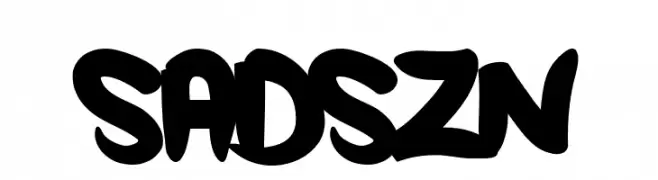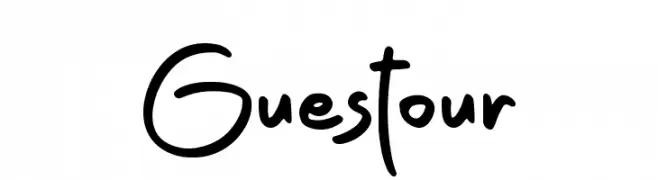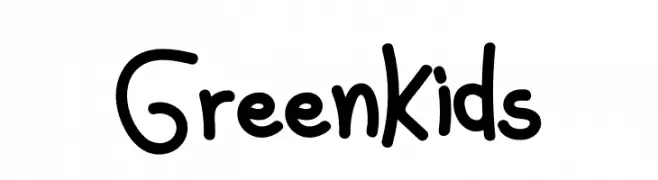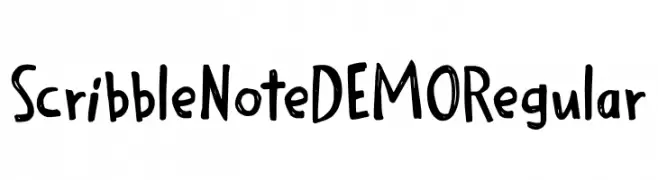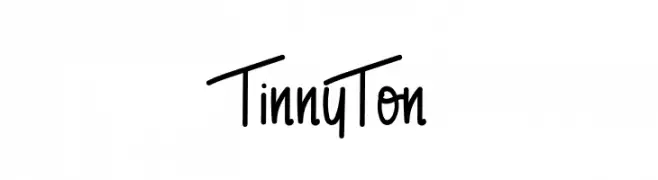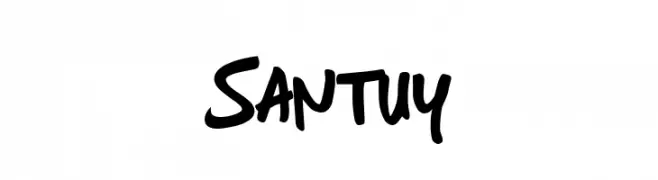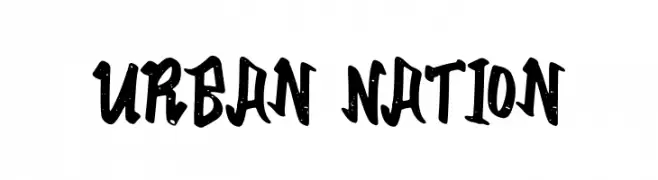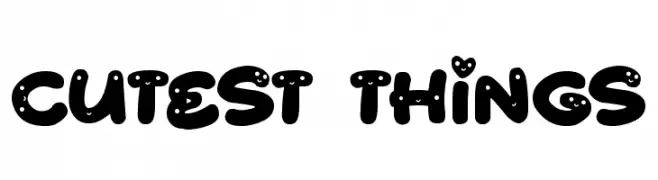
A bold, graffiti-style font with rounded, hand-drawn characters.
A playful and dynamic handwritten font with fluid strokes and a casual style.
A playful, hand-drawn font with rounded, bubbly characters.
A playful, hand-drawn font with a casual, doodle-like style.
A playful, hand-drawn font with a whimsical and informal style.
A playful, hand-drawn font with tall, narrow letters and a whimsical style.
A bold, handwritten-style font with a playful and dynamic appearance.
A lively and flowing cursive font with elegant connections and playful lowercase letters.
A bold, brush-style font with an urban, graffiti-inspired aesthetic.
A playful, heart-accented font with bold, rounded characters.